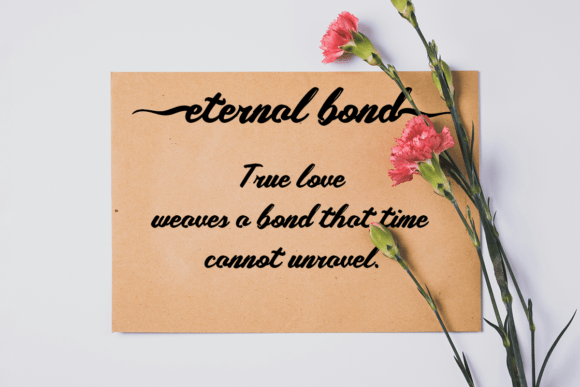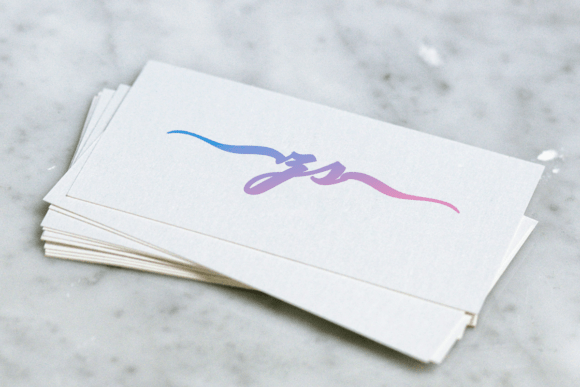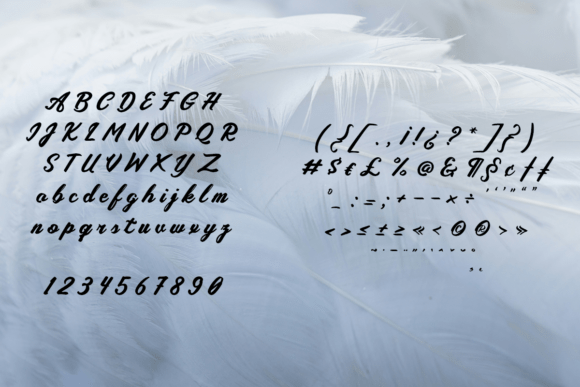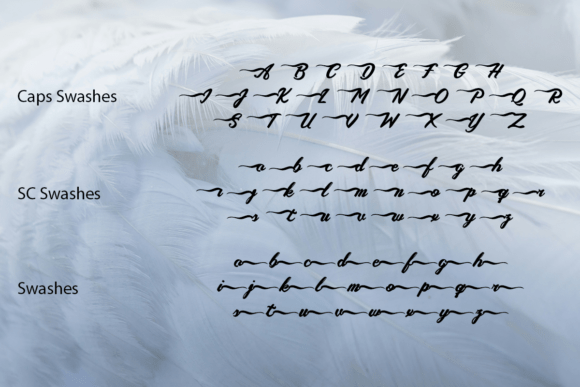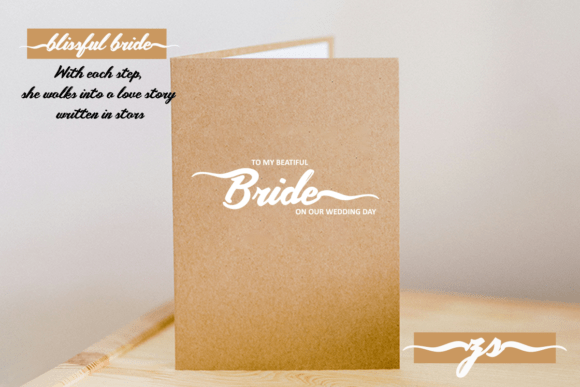
Aquifully Font: Elevate Your Designs with Elegance and Fluid Motion
In the world of typography, few fonts capture the essence of elegance and sophistication as beautifully as the Aquifully font. This stunning typeface is a masterful blend of sweeping, romantic swashes and a hand-lettered feel that mimics high-end calligraphy. Whether you’re a designer, crafters, or simply someone who appreciates the art of beautiful writing, the Aquifully font is sure to leave a lasting impression.
The Perfect Choice for Elegant Projects
The Aquifully font is specifically designed for projects that require a touch of personal grace and sophistication. Its exquisite expression of elegance and fluid motion makes it the perfect choice for:
- Wedding stationery: Add a touch of romance and whimsy to your wedding invitations, save-the-dates, and other stationery with the Aquifully font.
- Luxury branding: Elevate your brand’s image with a sophisticated and high-end typography that exudes bespoke craftsmanship.
- Delicate editorial layouts: Bring a touch of elegance to your editorial designs, such as fashion magazines, beauty blogs, or lifestyle publications.
Transforming Text into Art
With the Aquifully font, you can transform simple text into a centerpiece of art. Its sweeping swashes and hand-lettered feel add a level of sophistication and elegance to any design. Whether you’re creating a logo, invitation, or editorial layout, the Aquifully font is sure to make your text stand out.
Pairing Suggestions
The Aquifully font pairs exceptionally well with soft floral backgrounds and pastel color palettes to create an atmosphere of timeless beauty. Some popular pairing suggestions include:
- Soft peach or blush-colored backgrounds with gold or metallic accents.
- Delicate floral patterns in soft pastels, such as pale pink or baby blue.
- Rich textures, such as velvet or lace, to add depth and tactility to your design.
Design and Crafting Inspiration
The Aquifully font is a versatile typeface that can be used in a variety of design and crafting projects. Some inspiring ideas include:
- Invitation headers: Use the Aquifully font to create stunning invitation headers that set the tone for your special event.
- Boutique logos: Elevate your boutique’s image with a custom logo that features the Aquifully font.
- Stationery sets: Create a cohesive look with the Aquifully font and matching stationery sets, including notecards, journals, and stickers.
Tips for Working with the Aquifully Font
To get the most out of the Aquifully font, here are some tips to keep in mind:
- Experiment with different font sizes and colors to create visual hierarchy and emphasis.
- Use the font’s built-in swashes and flourishes to add elegance and sophistication to your design.
- Pair the Aquifully font with other typography to create a unique and eye-catching design.
The Aquifully font is a beautiful and elegant typeface that can elevate any design project. Its sweeping swashes, hand-lettered feel, and sophisticated style make it the perfect choice for wedding stationery, luxury branding, and delicate editorial layouts. With its versatility and timeless beauty, the Aquifully font is sure to become a staple in any designer’s or crafters’ toolkit.